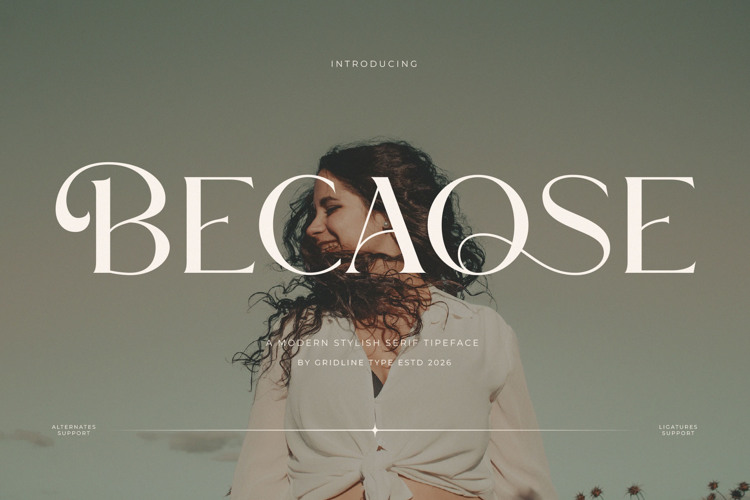
Becaose Font
Becaose is a sophisticated high-contrast serif typeface with a contemporary fashion-editorial style. Its sharp, elegant capitals, striking thick-thin contrast, and fluid swashes bring a luxurious, polished look to logos, brand identities, invitations, editorial design, and upscale packaging. Free for personal use; a commercial license is available from the designer.